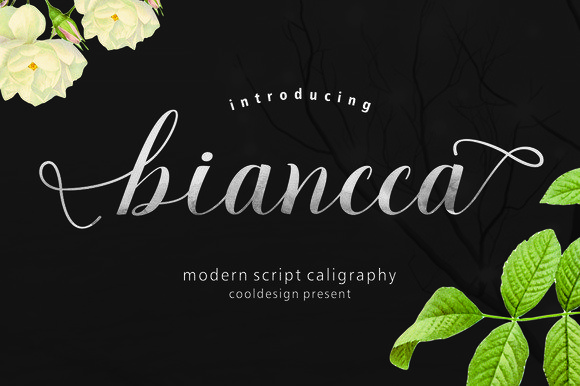
When Words Become Art: The Magic of Biancca Script Font
As a designer, there’s nothing quite like the thrill of bringing a creative idea to life. It’s the moment when a blank canvas transforms into a work of art, and every element falls into place. For me, that moment often begins with a font – the perfect combination of style and substance that sets the tone for the entire project. Recently, I’ve fallen in love with the Biancca Script Font, a modern scrip calligraphy that has captured my heart and inspired me to push the boundaries of design.
Biancca Script Font is more than just a typeface – it’s a tool for expression, a means of conveying emotion and personality through the written word. Whether it’s a wedding invitation, a greeting card, or a poster, this unique font has the power to elevate any design and make it truly special. As a designer, I can attest to the value of having a versatile and elegant font like Biancca Script Font in my toolkit – it’s a game-changer for any project that requires a touch of sophistication and flair.
Biancca Script Font Key Features
- Font Family: Biancca Script
- Unique Characteristics: Elegant, cursive script font with a touch of sophistication and femininity, ideal for wedding invitations, greeting cards, and other feminine designs
Biancca Script Font Review
Overall, I was impressed with the elegance and sophistication of the Biancca Script Font. ✨ Its flowing lines and subtle flourishes evoke a sense of luxury and refinement, making it perfect for high-end branding and packaging.
One of the strengths of the font is its versatility. ✨ It can be used in a variety of contexts, from formal invitations to elegant product labels. The font’s script style also makes it well-suited for creating a sense of drama and flair.
- ⚠️ The font may be too ornate for some applications, particularly those that require a more straightforward or modern aesthetic.
- ⚠️ The font’s script style can make it difficult to read at small sizes or in situations where the text is crowded.
- ⚠️ The font may not be suitable for digital use, particularly in situations where a clear and legible font is required.
In terms of overall impression, I would give the Biancca Script Font 4 out of 5 stars. While it excels in certain areas, it may not be the best choice for every project. However, when used effectively, it can add a touch of sophistication and elegance that is hard to find in other fonts.
Tips for Getting the Most Out of the Biancca Script Font
Here are some tips to help you get the most out of the Biancca Script Font:
- Use the font in conjunction with bold or italic text to create visual interest.
- Combine the Biancca Script Font with other fonts to create a custom typography style.
The Biancca Script Font is ideal for use in a variety of applications, including:
- Event signage and promotional materials.